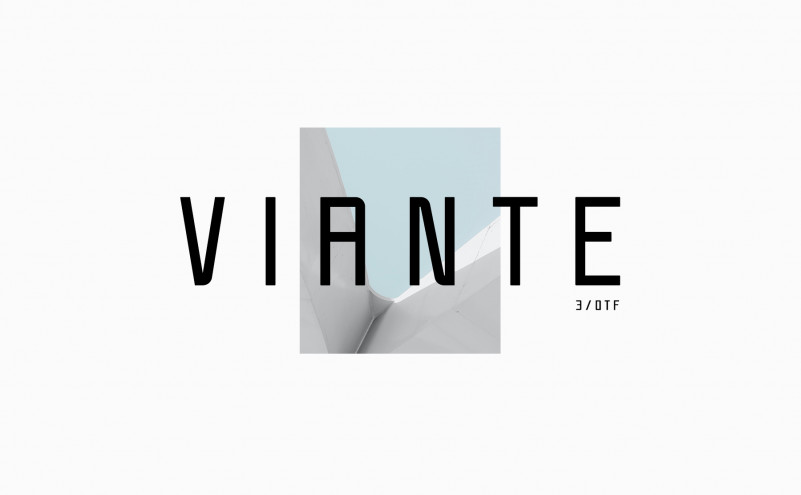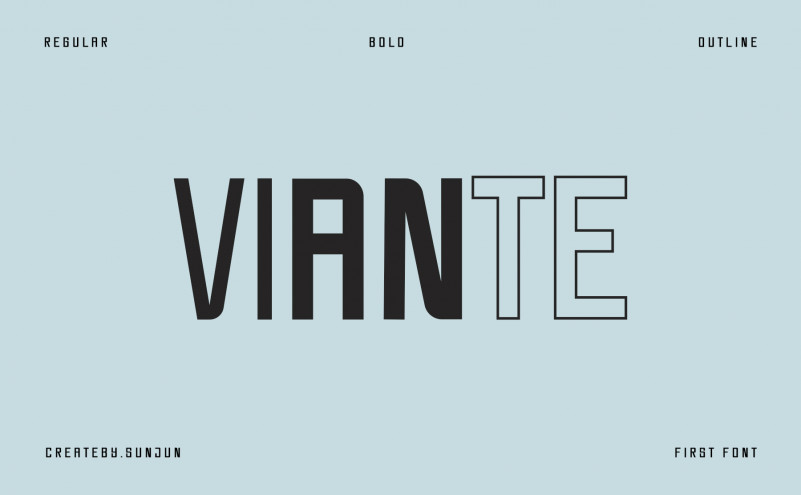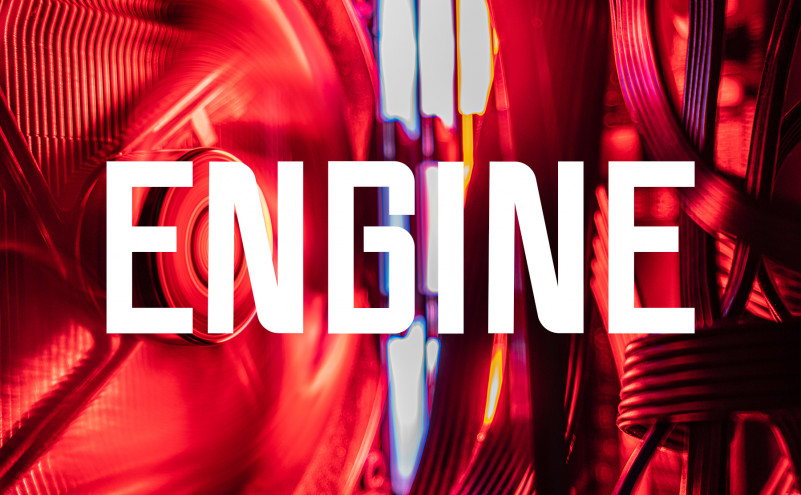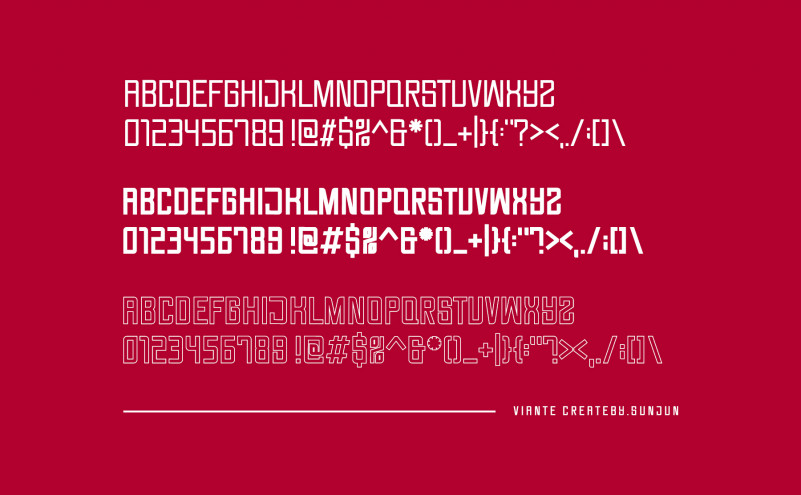
Viante Display Font
This font designed by createby sunjun is a modern typeface that feels beautiful classy, elegant, and modern. It is perfectly suited for a wide variety of projects, as to signature, stationery, logo, wedding, typography quotes, magazine or book cover, website header, clothing, branding, packaging design and more.
This is my first font, I will give you for free. you can use for personal or commercial porpouse. viante font is future & modern theme typography design, I create this font specially for title, display, and graphic design.